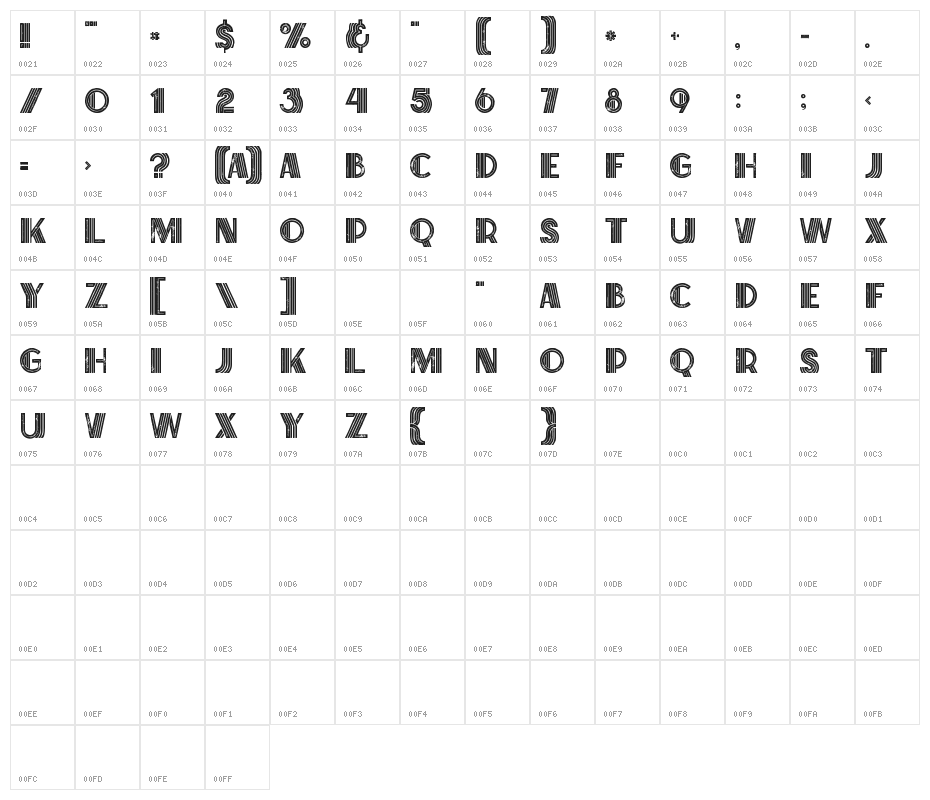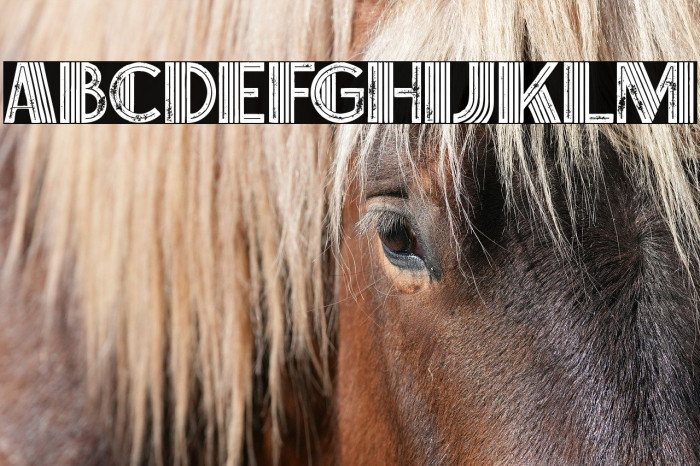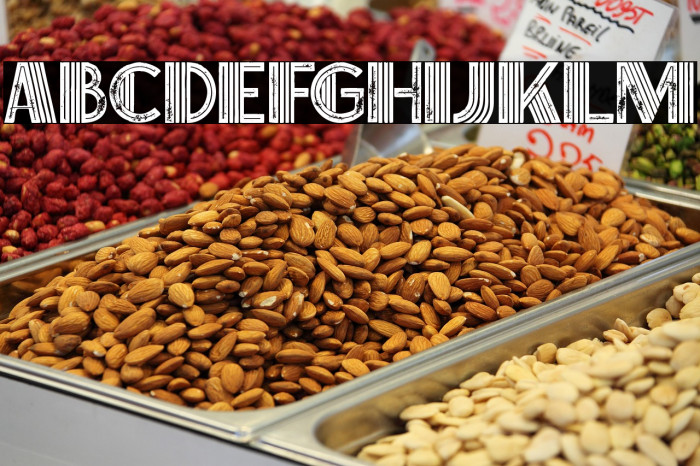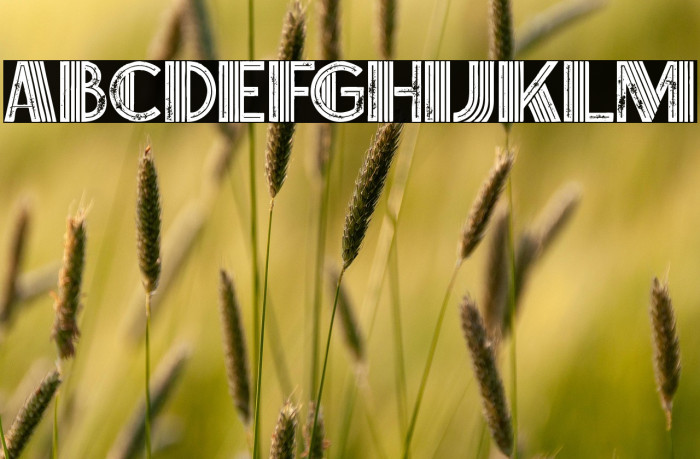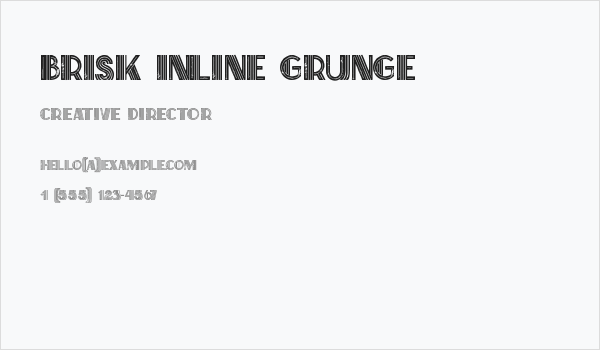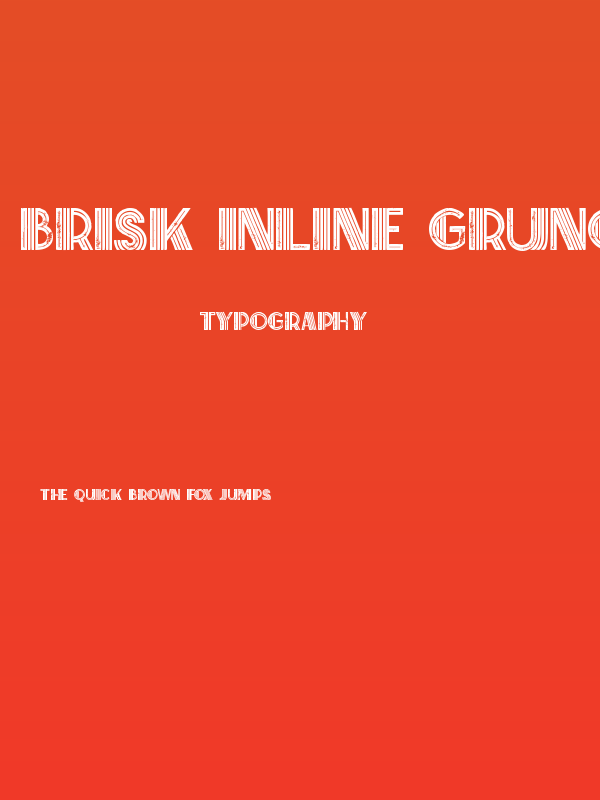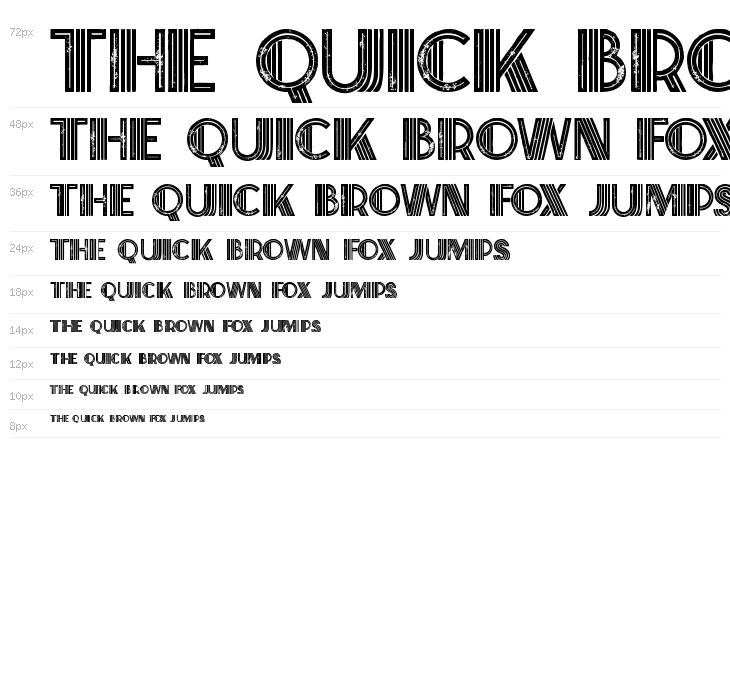
Brisk Inline Grunge Font
Brisk Inline Grunge Description
This font features a bold, inline design with a grunge texture that adds a distressed, worn look to each character. The uppercase and lowercase letters, along with numbers and special characters, exhibit a consistent style that combines modern geometric shapes with a vintage, industrial feel. The inline elements create a sense of depth and dimension, while the grunge texture gives it a raw, edgy appearance. This combination makes it suitable for projects that require a bold statement with a touch of nostalgia or urban flair.
| Overall Style | Vintage, Industrial, Grunge |
| Proposed Projects | Ideal for posters, album covers, branding for edgy or urban-themed products, and any design needing a bold, distressed look. |